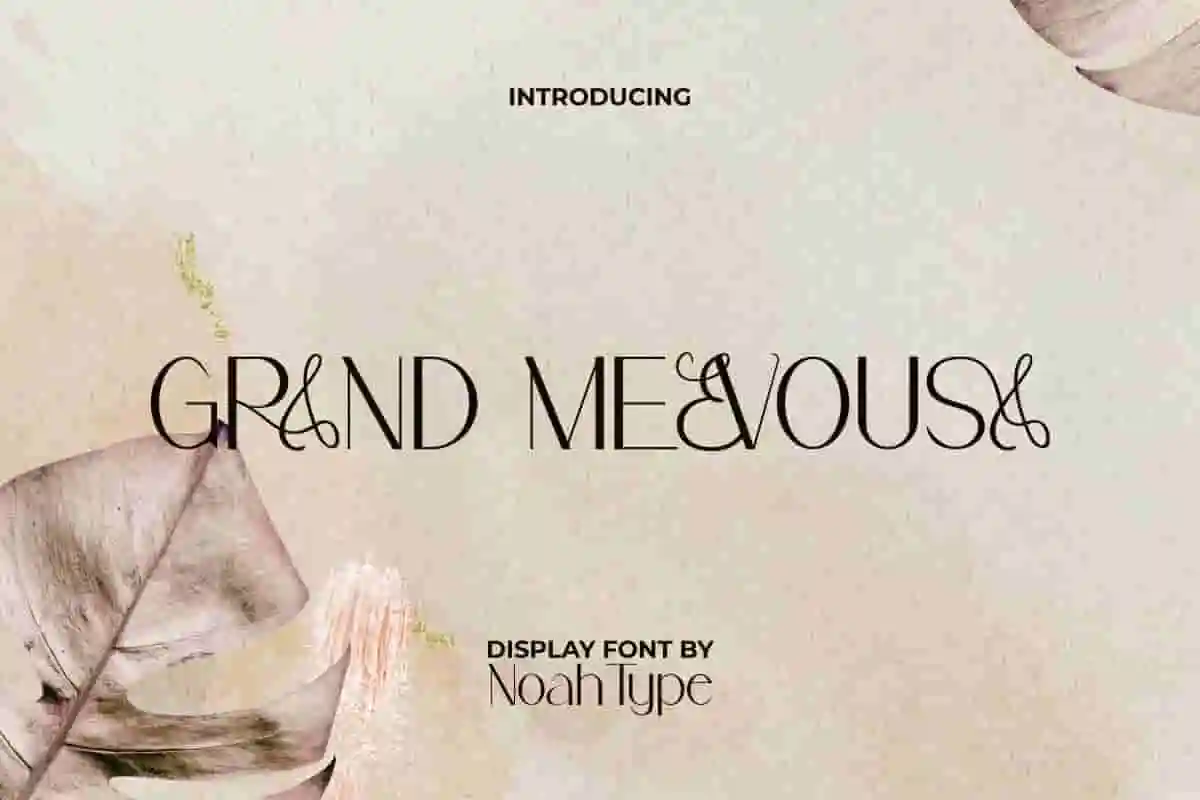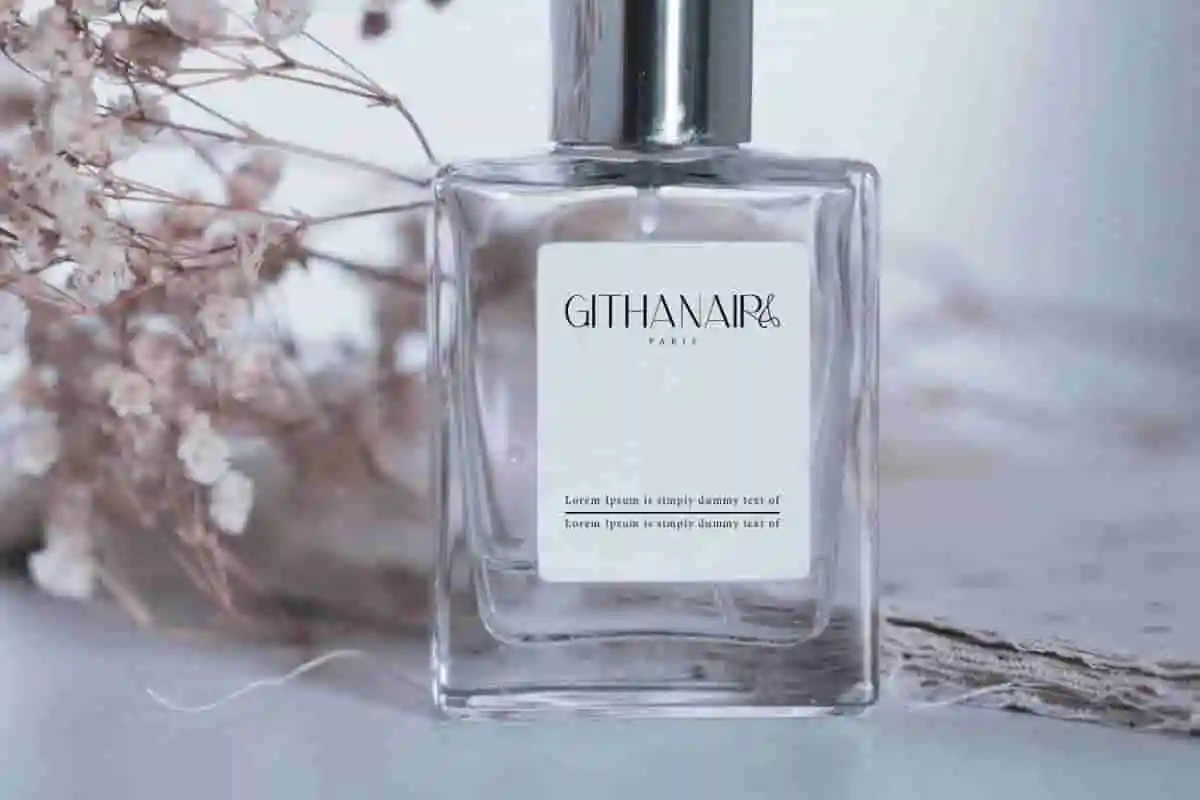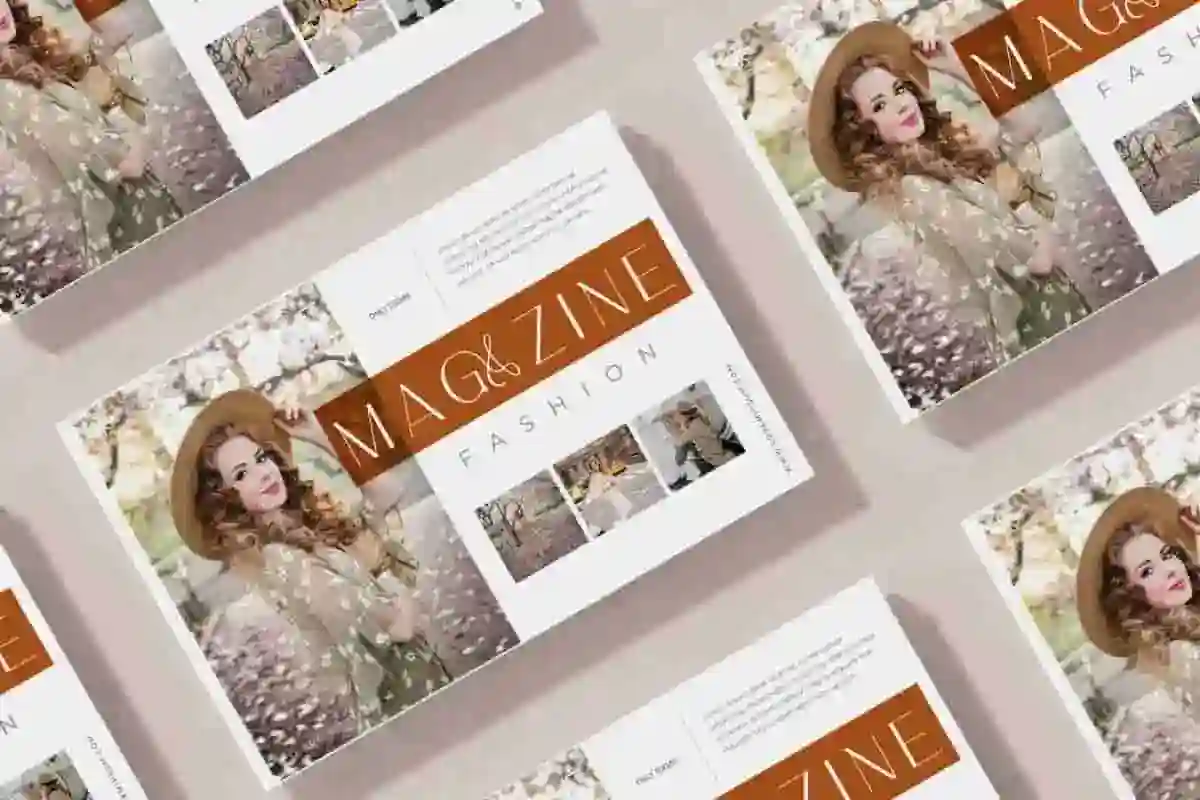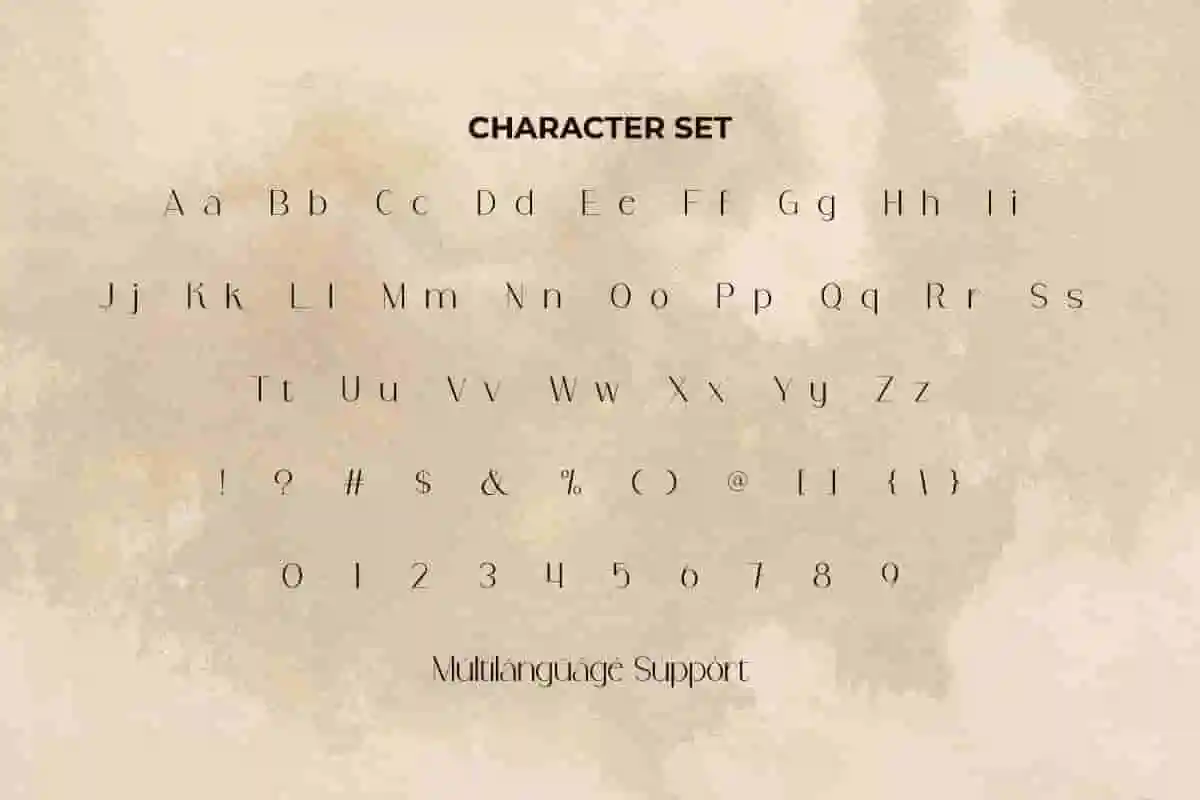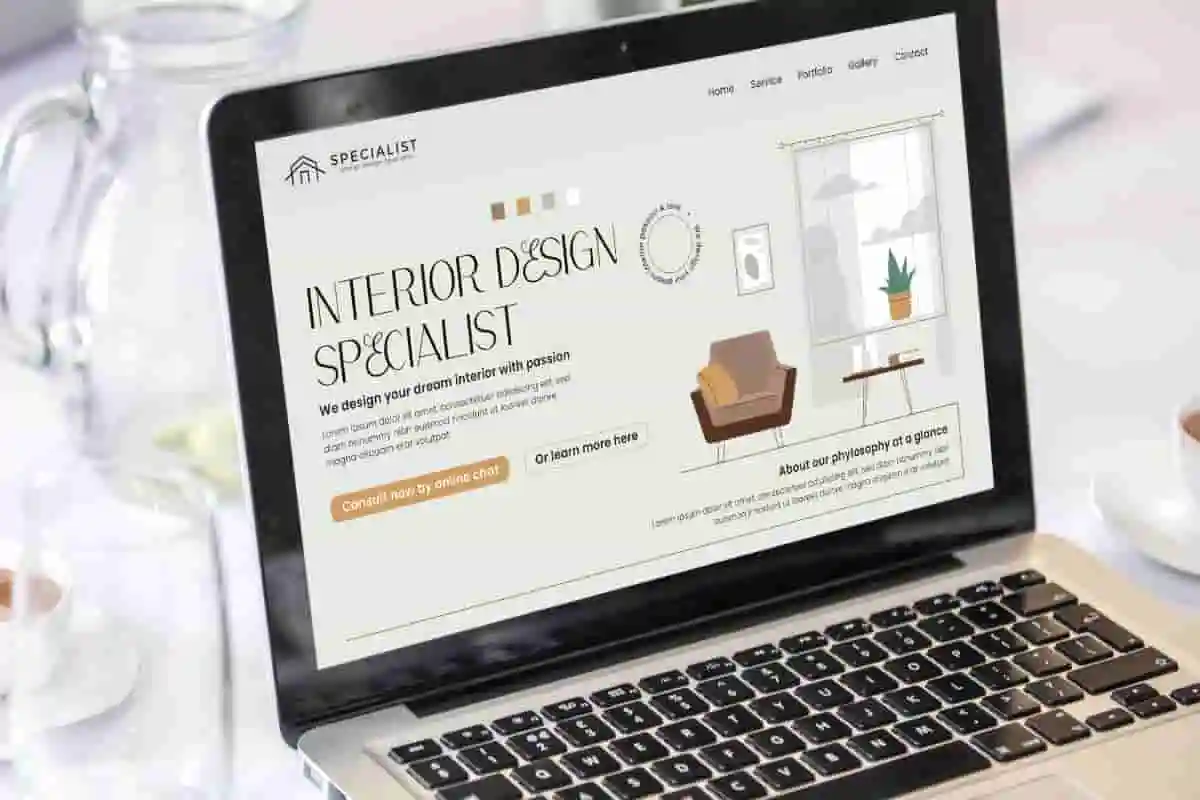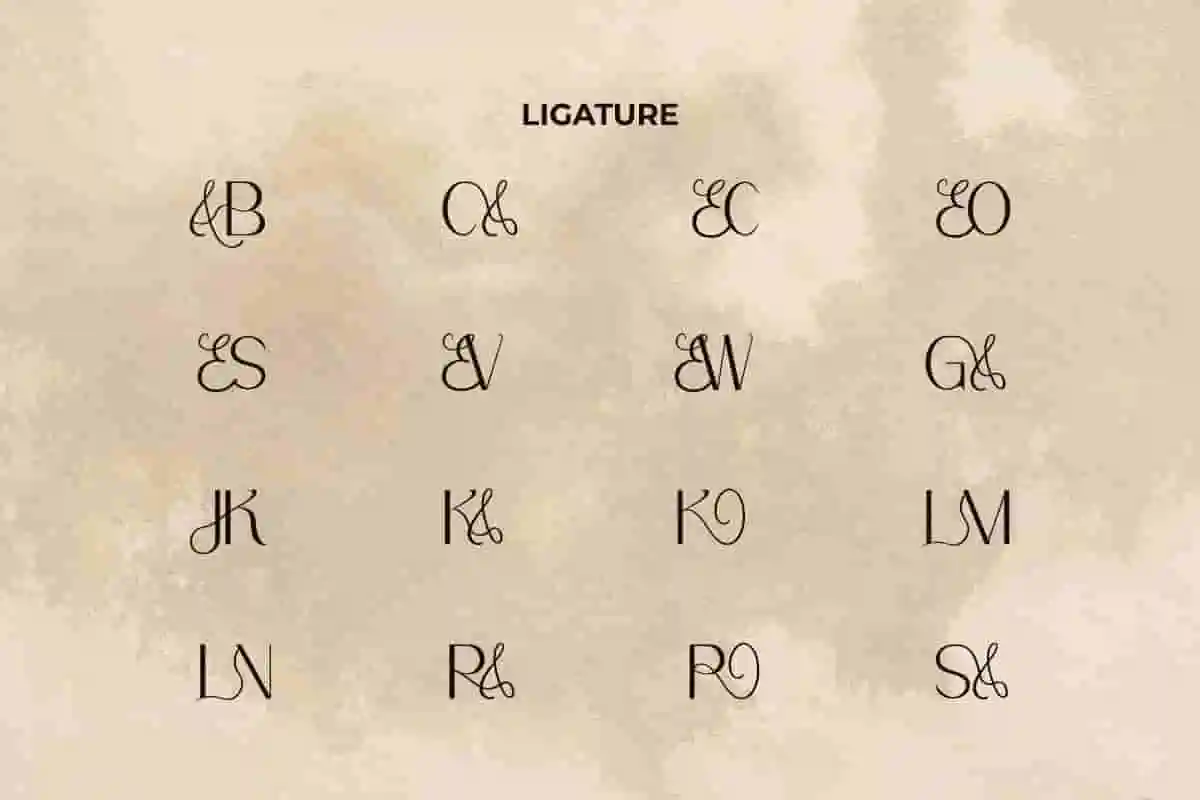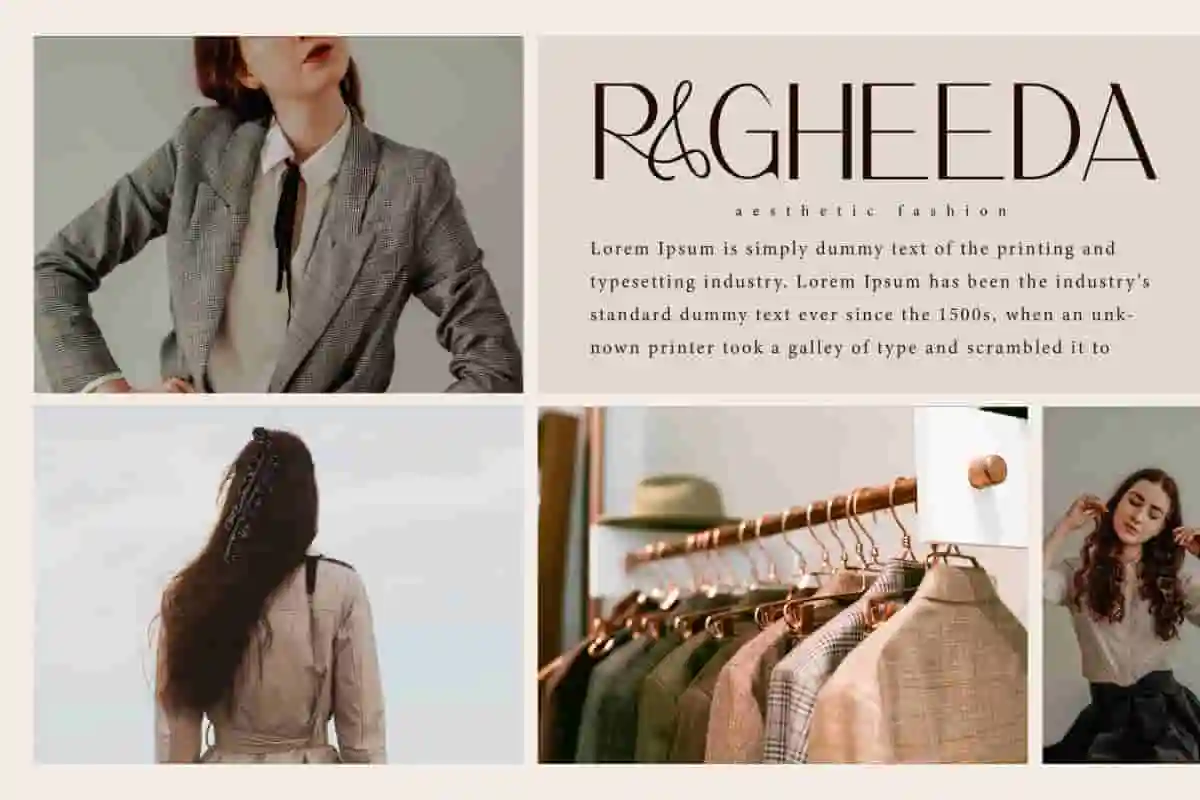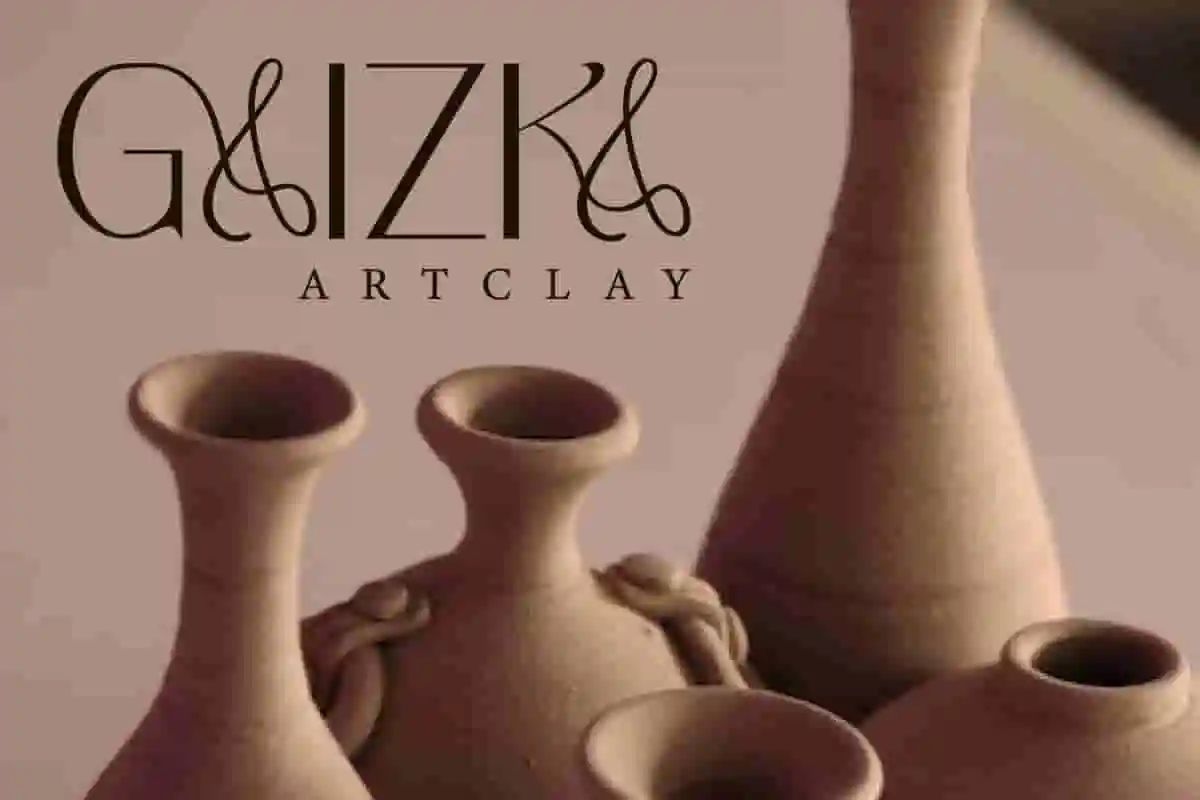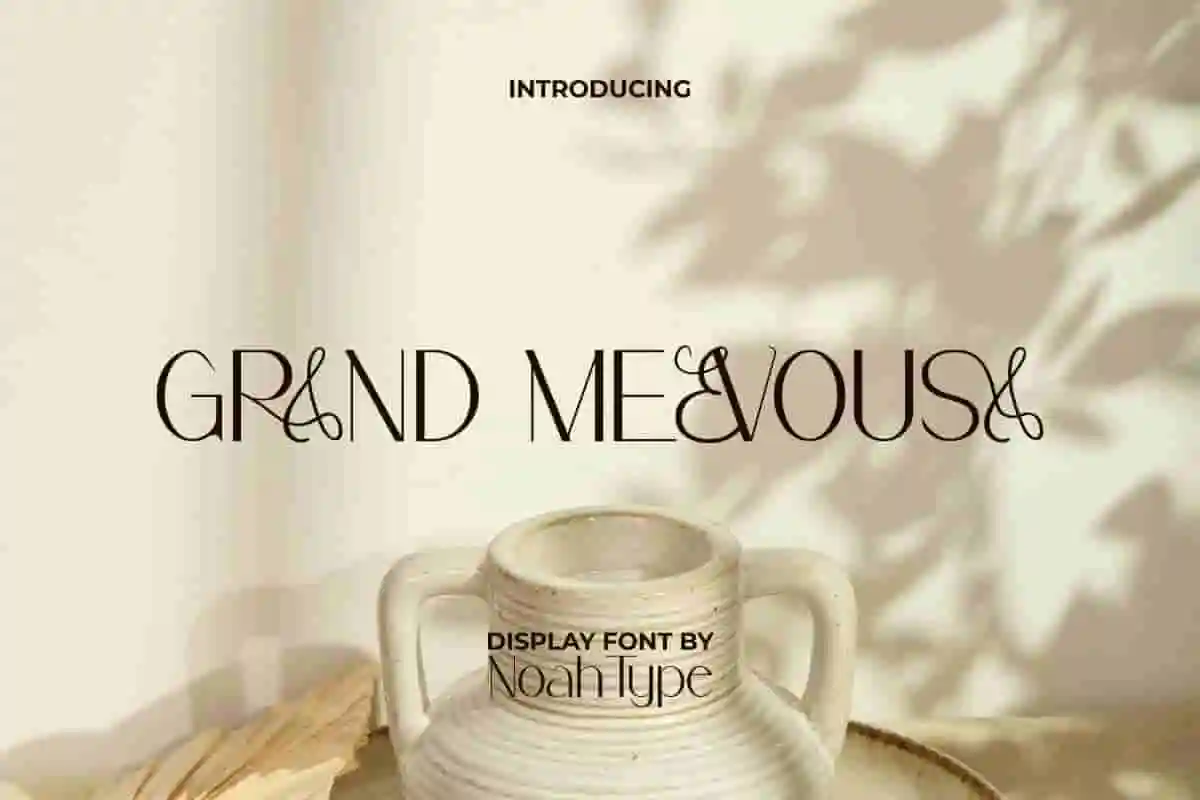
Grand Mevousa Font is a beautiful and elegant sophisticated sans serif display font with luxurious touch. The elegance of this font can beautify your design with minimalist letter shapes. It will be perfect for any designs, such as brand image, cover, custom design, invitation, label, marketing material, menu, poster, product packaging, quote, signage, stationery, web, and many more!
Grand Mevousa Font includes full set of Uppercase and Lowercase Basic Characters, Numerals, Punctuation, and Symbol. This font also has Ligature characters with a script type which is very suitable when paired and also a perfect choice for many industries, such as accessories, advertising, art, beauty product, cafe, event or festival, fashion, furniture, photography, printing, publishing, restaurant, etc.